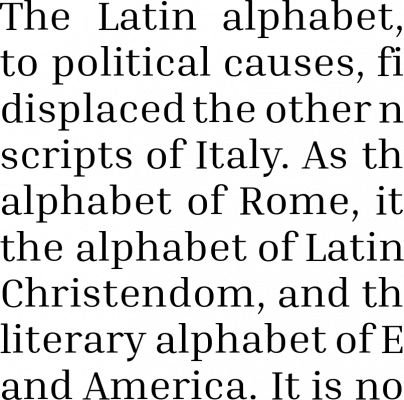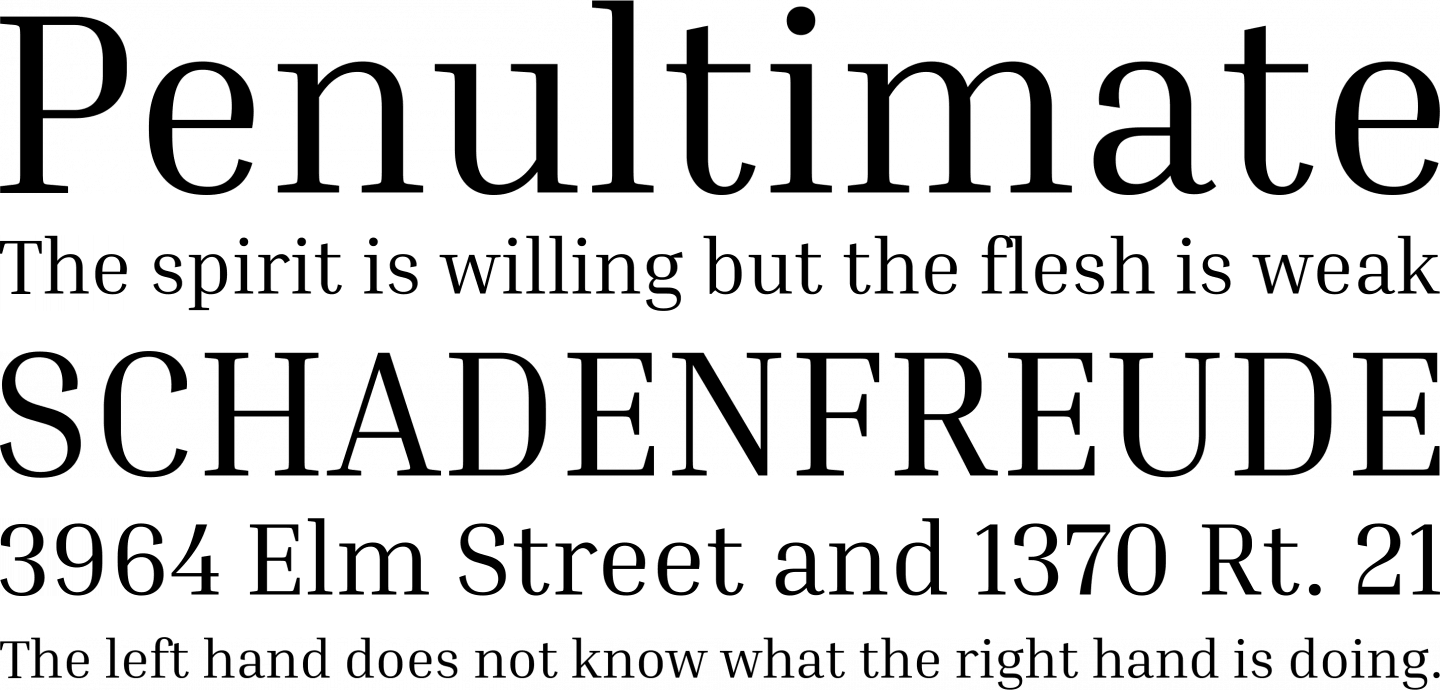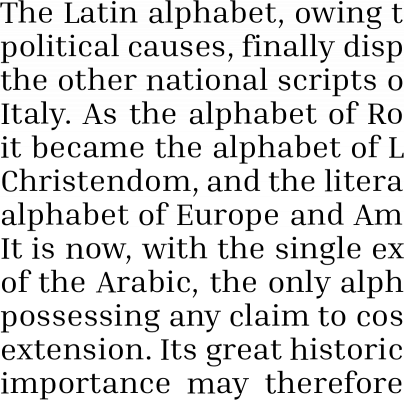
18+ Serif Font Is Creativefabrica. This font is equipped with uppercase, lowercase, numbers, punctuation, and several variations on each character. Times new roman and georgia are examples of serif fonts. Bonange basic serif font is a bold and elegant serif font. Let's take a deep dive into serif vs. Times roman is one example of a serif font. Helvetica is an example of a. A serif font is one where the letter strokes are terminated by short bars usually at right angles to the stroke. 1 2 3 4 5 6 7 8 9 10. Browse by alphabetical listing, by style, by author or by popularity. These serif fonts are typically used in newspapers, because they make reading quick and easy. Archive of freely downloadable fonts. (fonts without serifs are called sans serif fonts.) serif fonts are popular and have been around for many years. Sans serif fonts to help you figure out which category is the best fit for you and your designs Serif fonts are used for body text because they are very easy to read. Serif typefaces have small projections at the ends of the letter strokes.
Astd8fdain8 Vm. Let's take a deep dive into serif vs. Archive of freely downloadable fonts. Times roman is one example of a serif font. Serif typefaces have small projections at the ends of the letter strokes. Bonange basic serif font is a bold and elegant serif font. (fonts without serifs are called sans serif fonts.) serif fonts are popular and have been around for many years. Times new roman and georgia are examples of serif fonts. Sans serif fonts to help you figure out which category is the best fit for you and your designs These serif fonts are typically used in newspapers, because they make reading quick and easy. 1 2 3 4 5 6 7 8 9 10. Browse by alphabetical listing, by style, by author or by popularity. This font is equipped with uppercase, lowercase, numbers, punctuation, and several variations on each character. A serif font is one where the letter strokes are terminated by short bars usually at right angles to the stroke. Helvetica is an example of a. Serif fonts are used for body text because they are very easy to read.
Bonange basic serif font is a bold and elegant serif font. The most common one you may know of is the times new roman font. It is less likely to read a l as a i or vice versa. 1 2 3 4 5 6 7 8 9 10. A serif is the little decorative stroke that continues after the end of the stems of letters. To define what a serif font is, we need to know what a serif is. This font is equipped with uppercase, lowercase, numbers, punctuation, and several variations on each character.
Why this font is everywhere. This font is equipped with uppercase, lowercase, numbers, punctuation, and several variations on each character. Why this font is everywhere. There is one reason to use serif and not sans serif: Courier new is the most widely used monospace serif font. Top 10 fonts that i think will be popular in 2021. Designers have thousands of typefaces to choose from and step one is choosing between fonts that have serifs and fonts that don't. A serif font is one where the letter strokes are terminated by short bars usually at right angles to the stroke. Serif fonts contain additional decorative elements like simple flourishes at the end of each letter. Archive of freely downloadable fonts. Times roman is one example of a serif font. Serif typefaces have small projections at the ends of the letter strokes. The best selection of sans serif fonts for windows and macintosh. Sans serif fonts to help you figure out which category is the best fit for you and your designs Helvetica is an example of a. Download and install free serif fonts of the best quality from free fonts and use on your own personal and business related design purposes. This is why they are often chosen as font for the main text. 1 2 3 4 5 6 7 8 9 10. Google fonts now supports variable fonts. A serif is the little decorative stroke that continues after the end of the stems of letters. It is less likely to read a l as a i or vice versa. The small features on the ends of strokes in some fonts are known as serifs.. Serif fonts are used for body text because they are very easy to read. Helvetica is a sans serif type and times roman is a serif type. Download 1545 sans serif fonts. Serif vs sans serif fonts. Times new roman and georgia are examples of serif fonts. Bonange basic serif font is a bold and elegant serif font. (fonts without serifs are called sans serif fonts.) serif fonts are popular and have been around for many years. These serif fonts are typically used in newspapers, because they make reading quick and easy. What is a serif font?
Download Fake Serif Regular. 1 2 3 4 5 6 7 8 9 10. Browse by alphabetical listing, by style, by author or by popularity. Bonange basic serif font is a bold and elegant serif font. Archive of freely downloadable fonts. Sans serif fonts to help you figure out which category is the best fit for you and your designs Times new roman and georgia are examples of serif fonts. Serif fonts are used for body text because they are very easy to read. (fonts without serifs are called sans serif fonts.) serif fonts are popular and have been around for many years. Times roman is one example of a serif font. Serif typefaces have small projections at the ends of the letter strokes. This font is equipped with uppercase, lowercase, numbers, punctuation, and several variations on each character. A serif font is one where the letter strokes are terminated by short bars usually at right angles to the stroke. Let's take a deep dive into serif vs. Helvetica is an example of a. These serif fonts are typically used in newspapers, because they make reading quick and easy.
Usually the default serif font is times new roman on pcs, times on macs.
Download Free Serifa Regular Font Dafontfree Net. Let's take a deep dive into serif vs. (fonts without serifs are called sans serif fonts.) serif fonts are popular and have been around for many years. Archive of freely downloadable fonts. A serif font is one where the letter strokes are terminated by short bars usually at right angles to the stroke. Bonange basic serif font is a bold and elegant serif font. Times roman is one example of a serif font. These serif fonts are typically used in newspapers, because they make reading quick and easy. This font is equipped with uppercase, lowercase, numbers, punctuation, and several variations on each character. Sans serif fonts to help you figure out which category is the best fit for you and your designs Helvetica is an example of a. Serif fonts are used for body text because they are very easy to read. Times new roman and georgia are examples of serif fonts. 1 2 3 4 5 6 7 8 9 10. Serif typefaces have small projections at the ends of the letter strokes. Browse by alphabetical listing, by style, by author or by popularity.
Drifter Seriff Font By Nryntdw Creative Fabrica. Bonange basic serif font is a bold and elegant serif font. Times new roman and georgia are examples of serif fonts. Times roman is one example of a serif font. 1 2 3 4 5 6 7 8 9 10. Serif typefaces have small projections at the ends of the letter strokes. These serif fonts are typically used in newspapers, because they make reading quick and easy. Serif fonts are used for body text because they are very easy to read. Sans serif fonts to help you figure out which category is the best fit for you and your designs This font is equipped with uppercase, lowercase, numbers, punctuation, and several variations on each character. Let's take a deep dive into serif vs. (fonts without serifs are called sans serif fonts.) serif fonts are popular and have been around for many years. A serif font is one where the letter strokes are terminated by short bars usually at right angles to the stroke. Archive of freely downloadable fonts. Helvetica is an example of a. Browse by alphabetical listing, by style, by author or by popularity.
Astd8fdain8 Vm. Bonange basic serif font is a bold and elegant serif font. Serif fonts are used for body text because they are very easy to read. (fonts without serifs are called sans serif fonts.) serif fonts are popular and have been around for many years. 1 2 3 4 5 6 7 8 9 10. Browse by alphabetical listing, by style, by author or by popularity. Serif typefaces have small projections at the ends of the letter strokes. These serif fonts are typically used in newspapers, because they make reading quick and easy. Let's take a deep dive into serif vs. Archive of freely downloadable fonts. Sans serif fonts to help you figure out which category is the best fit for you and your designs A serif font is one where the letter strokes are terminated by short bars usually at right angles to the stroke. Helvetica is an example of a. Times roman is one example of a serif font. This font is equipped with uppercase, lowercase, numbers, punctuation, and several variations on each character. Times new roman and georgia are examples of serif fonts.
The most common one you may know of is the times new roman font.
Professional Collection Font Bundle Bundle Creative Fabrica. Archive of freely downloadable fonts. Serif fonts are used for body text because they are very easy to read. Serif typefaces have small projections at the ends of the letter strokes. This font is equipped with uppercase, lowercase, numbers, punctuation, and several variations on each character. Let's take a deep dive into serif vs. These serif fonts are typically used in newspapers, because they make reading quick and easy. Bonange basic serif font is a bold and elegant serif font. Helvetica is an example of a. Times roman is one example of a serif font. (fonts without serifs are called sans serif fonts.) serif fonts are popular and have been around for many years. Browse by alphabetical listing, by style, by author or by popularity. Sans serif fonts to help you figure out which category is the best fit for you and your designs Times new roman and georgia are examples of serif fonts. A serif font is one where the letter strokes are terminated by short bars usually at right angles to the stroke. 1 2 3 4 5 6 7 8 9 10.
Astd8fdain8 Vm. (fonts without serifs are called sans serif fonts.) serif fonts are popular and have been around for many years. Times roman is one example of a serif font. Serif typefaces have small projections at the ends of the letter strokes. These serif fonts are typically used in newspapers, because they make reading quick and easy. Times new roman and georgia are examples of serif fonts. Helvetica is an example of a. Archive of freely downloadable fonts. A serif font is one where the letter strokes are terminated by short bars usually at right angles to the stroke. This font is equipped with uppercase, lowercase, numbers, punctuation, and several variations on each character. Sans serif fonts to help you figure out which category is the best fit for you and your designs Serif fonts are used for body text because they are very easy to read. 1 2 3 4 5 6 7 8 9 10. Let's take a deep dive into serif vs. Browse by alphabetical listing, by style, by author or by popularity. Bonange basic serif font is a bold and elegant serif font.
Free Quality Fonts Available For Download Fontsrepo. Bonange basic serif font is a bold and elegant serif font. (fonts without serifs are called sans serif fonts.) serif fonts are popular and have been around for many years. Times new roman and georgia are examples of serif fonts. Serif typefaces have small projections at the ends of the letter strokes. Times roman is one example of a serif font. Browse by alphabetical listing, by style, by author or by popularity. Archive of freely downloadable fonts. Serif fonts are used for body text because they are very easy to read. Sans serif fonts to help you figure out which category is the best fit for you and your designs A serif font is one where the letter strokes are terminated by short bars usually at right angles to the stroke. Let's take a deep dive into serif vs. This font is equipped with uppercase, lowercase, numbers, punctuation, and several variations on each character. Helvetica is an example of a. These serif fonts are typically used in newspapers, because they make reading quick and easy. 1 2 3 4 5 6 7 8 9 10.
This is why they are often chosen as font for the main text.
Google fonts now supports variable fonts. Sans serif fonts to help you figure out which category is the best fit for you and your designs Archive of freely downloadable fonts. Serif fonts are used for body text because they are very easy to read. Sans serif fonts, on the other. A serif font is one where the letter strokes are terminated by short bars usually at right angles to the stroke. Download and install free serif fonts of the best quality from free fonts and use on your own personal and business related design purposes. What is a serif font? Serif vs sans serif fonts. The most common one you may know of is the times new roman font.